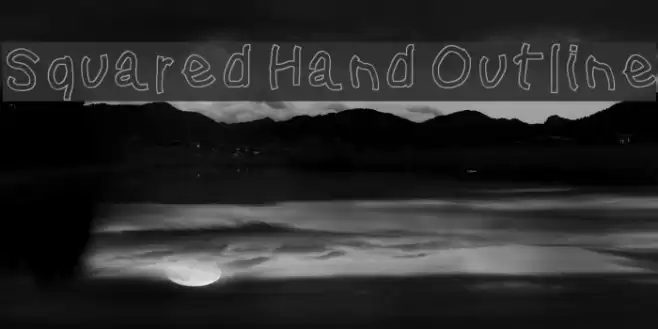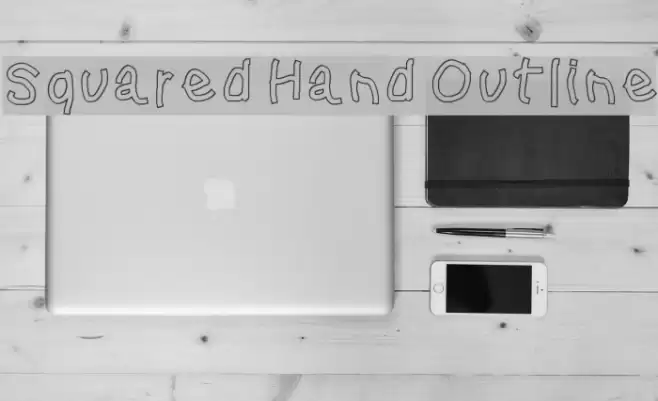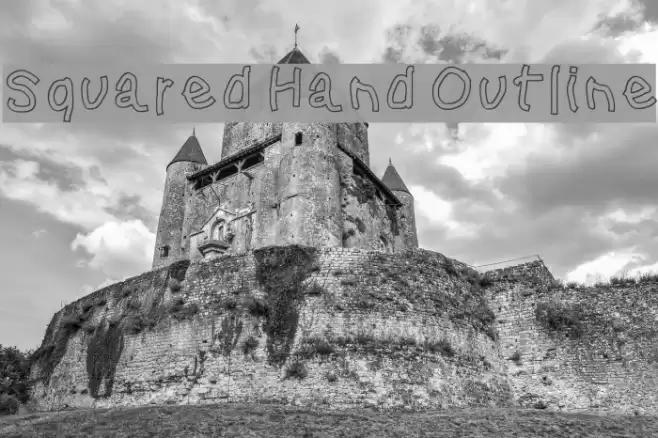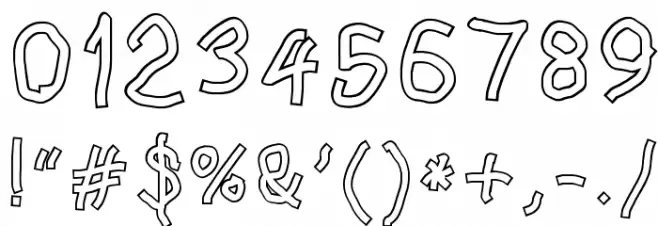
Squared Hand Outline Font
Squared Hand Outline Description
This font features a playful, hand-drawn style with a unique squared outline that gives it a distinctive, informal appearance. The letters are irregular and slightly tilted, adding to the casual and whimsical feel. The uppercase and lowercase characters maintain a consistent style, with the uppercase being slightly more structured. Numbers and special characters follow the same design, ensuring a cohesive look across all elements. The outline effect adds depth and a touch of creativity, making it stand out in various design contexts.
A playful, hand-drawn font with a squared outline and whimsical style from Uncategorized fonts.
- Proposed Projects: Ideal for children's book covers, playful branding, creative posters, and informal invitations.
- Overall Style: Whimsical
- Use Case: Logos, Posters, Invitations